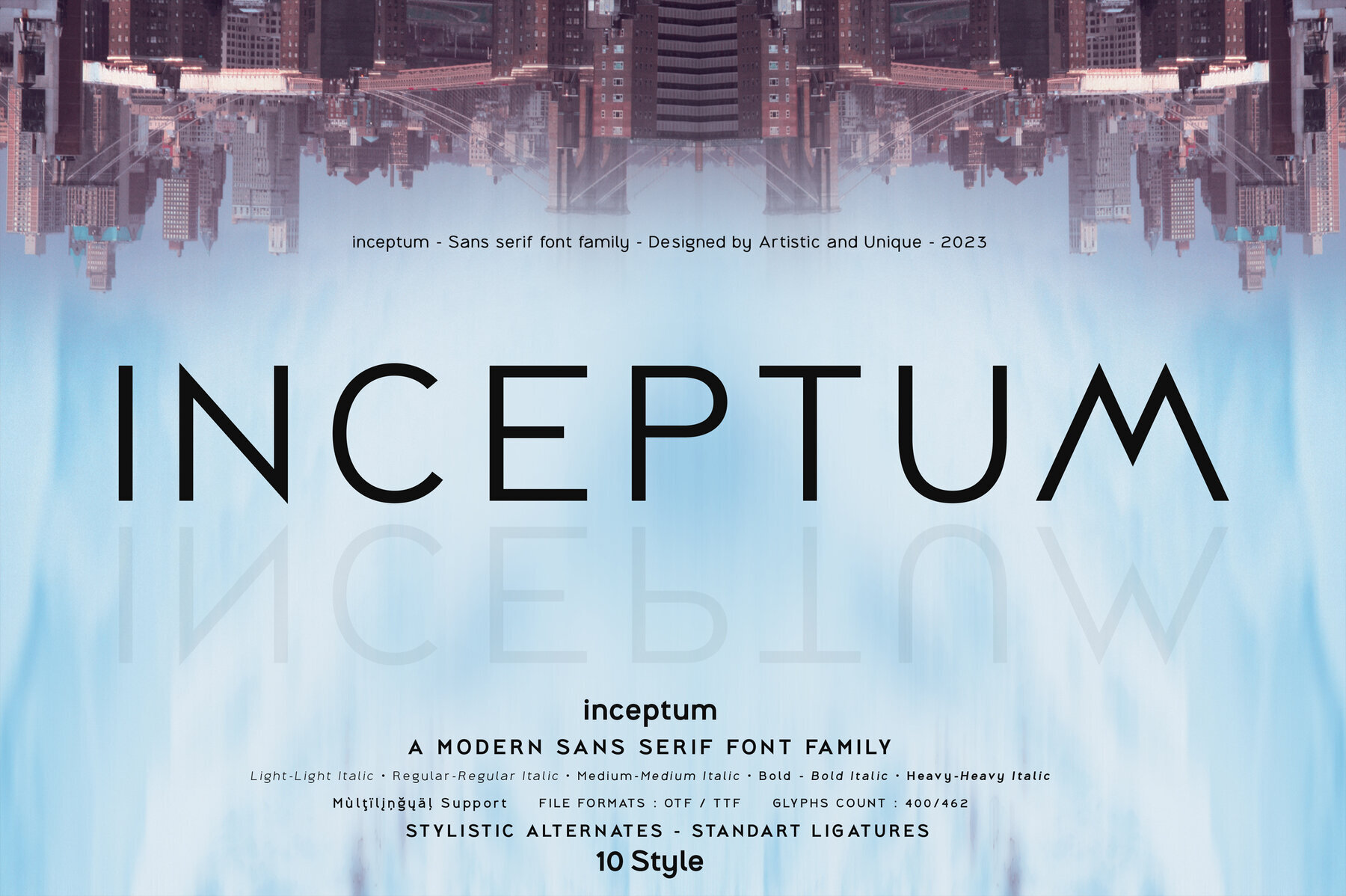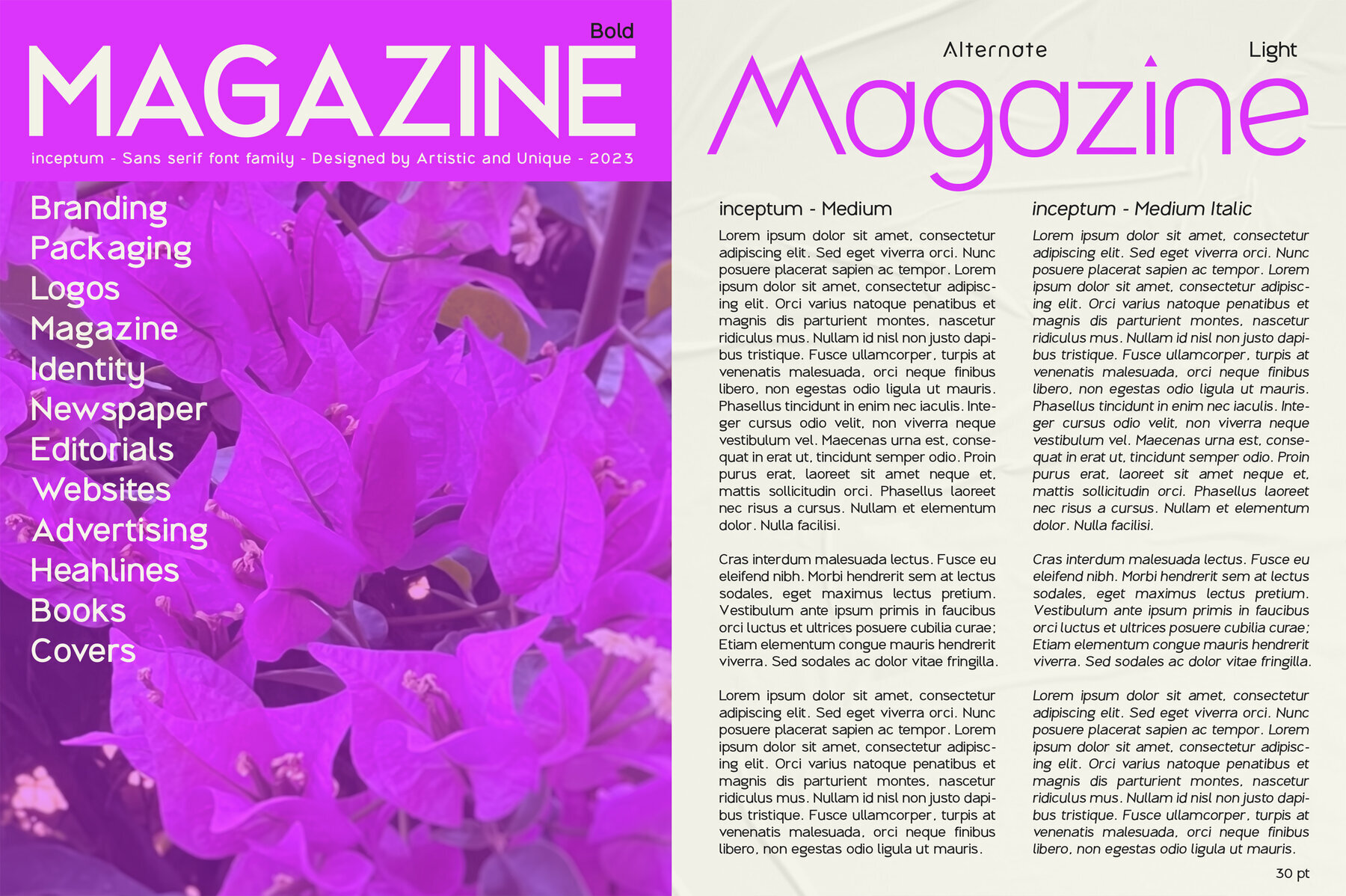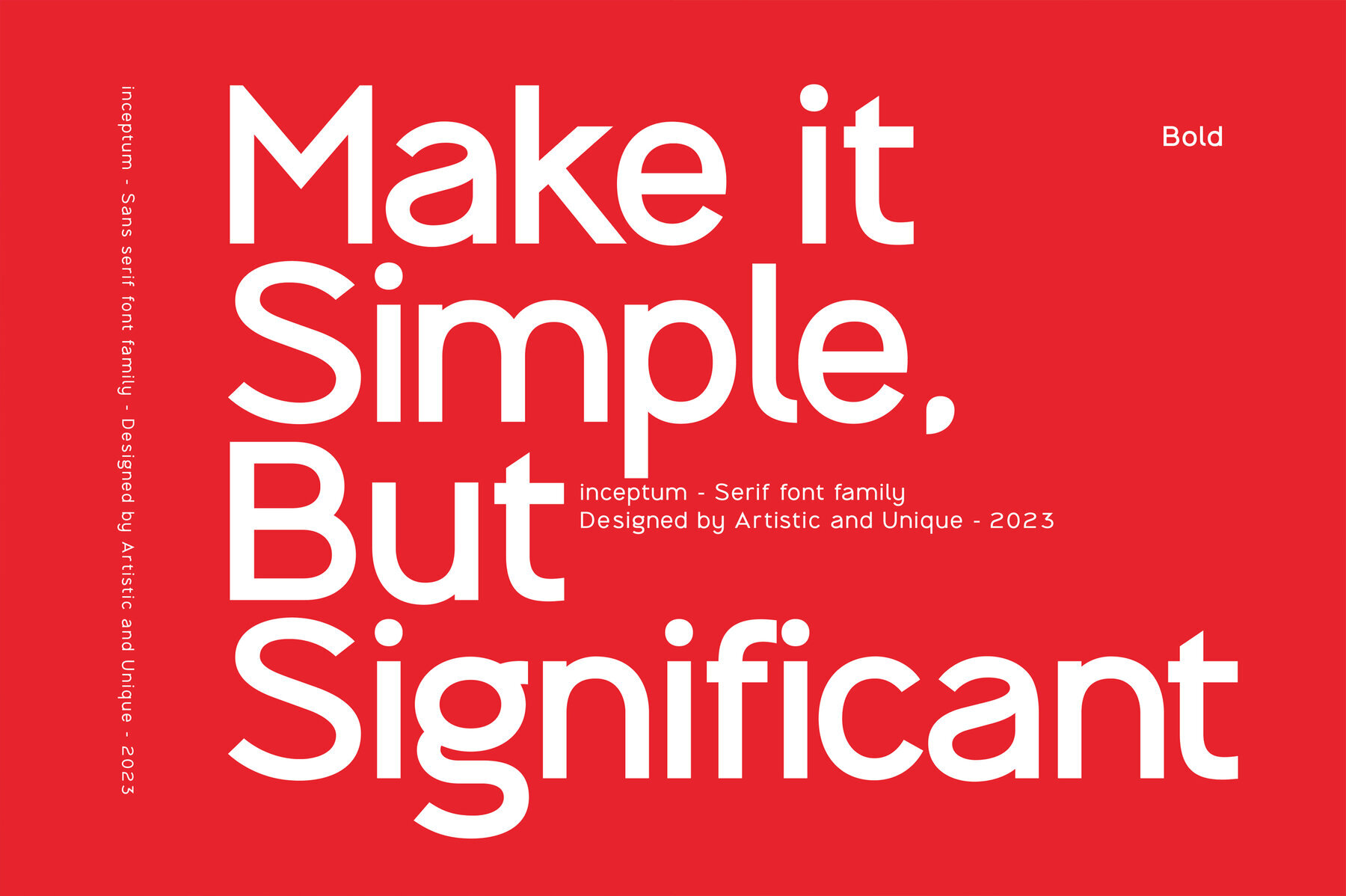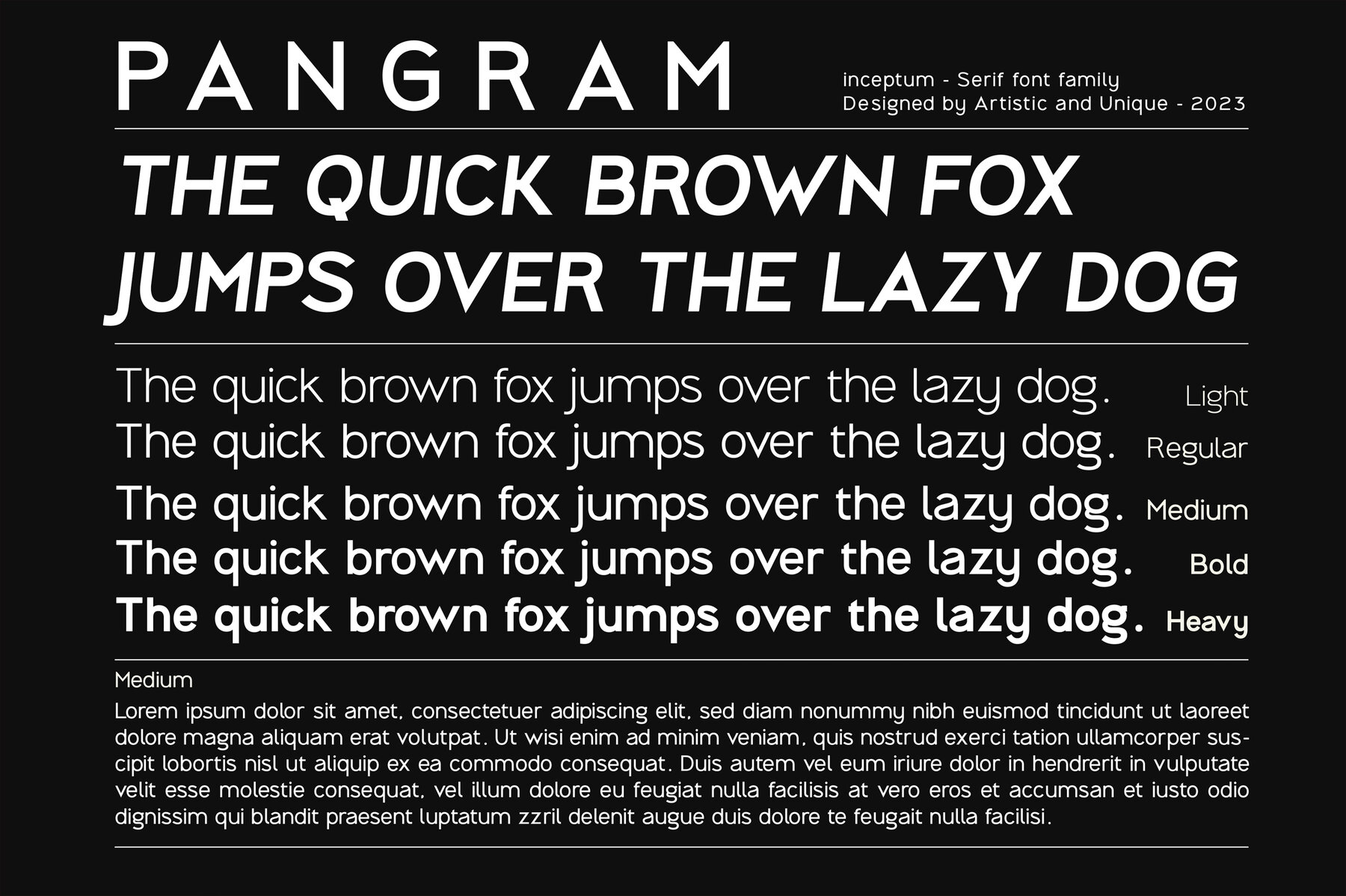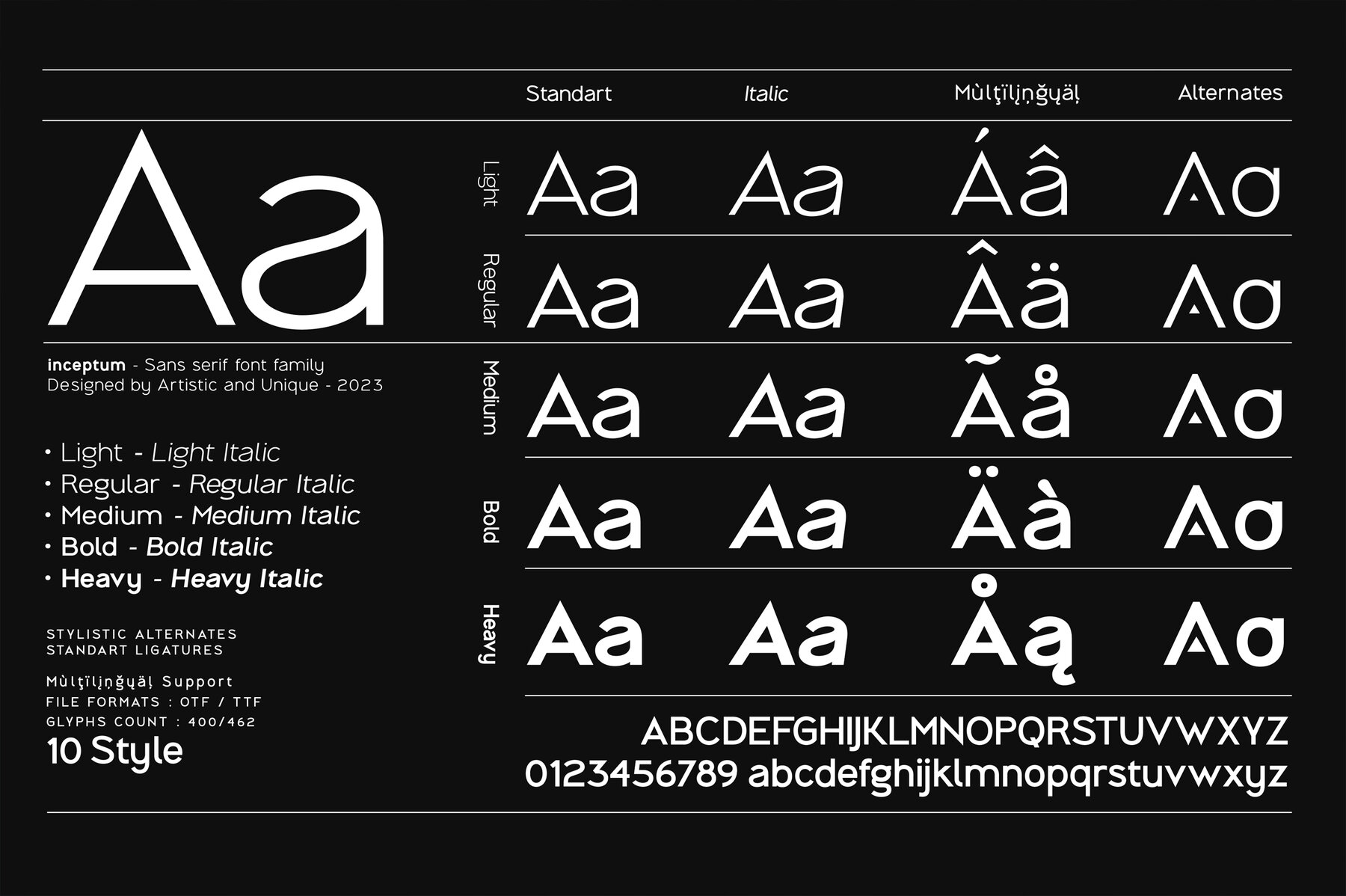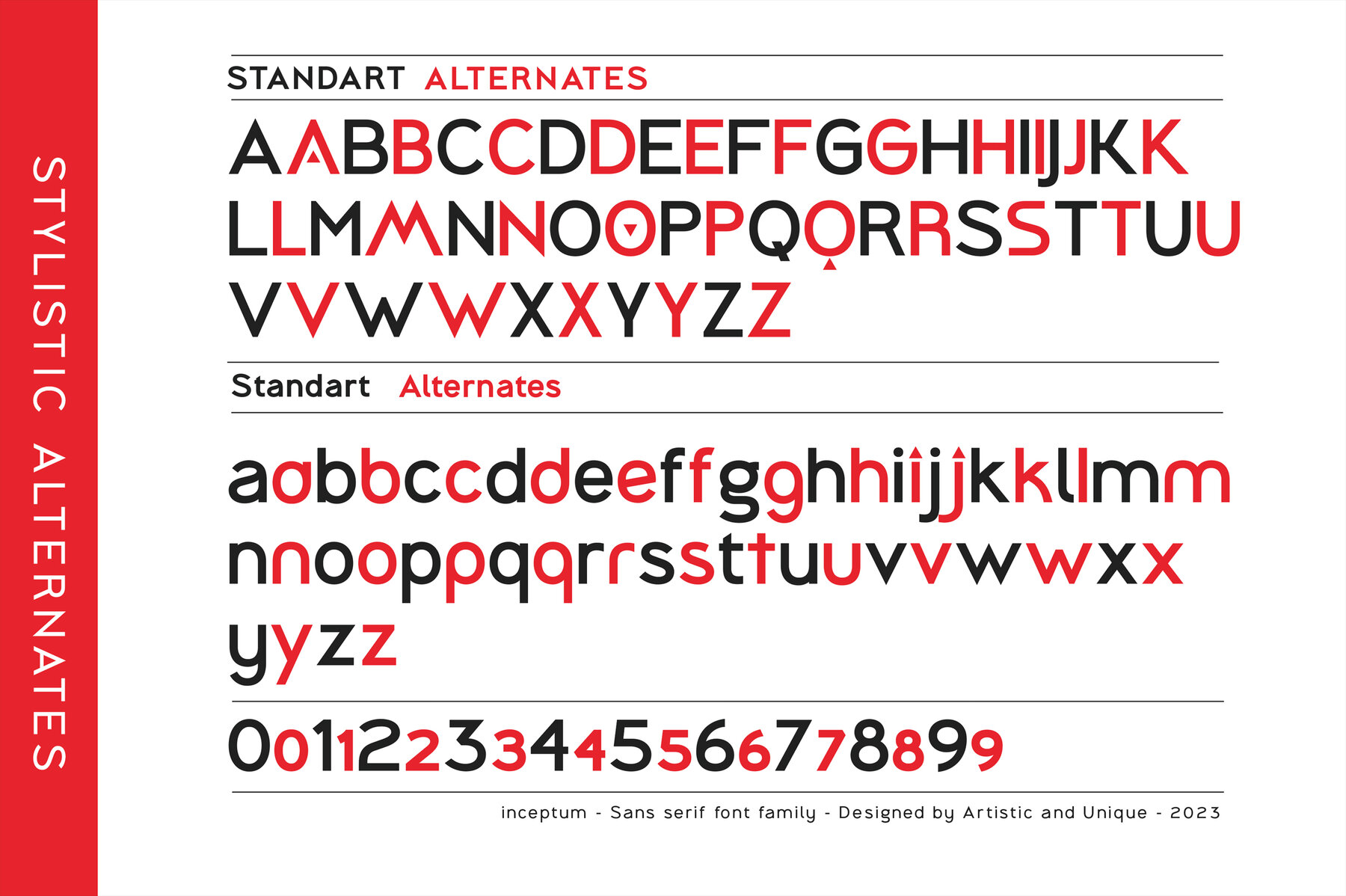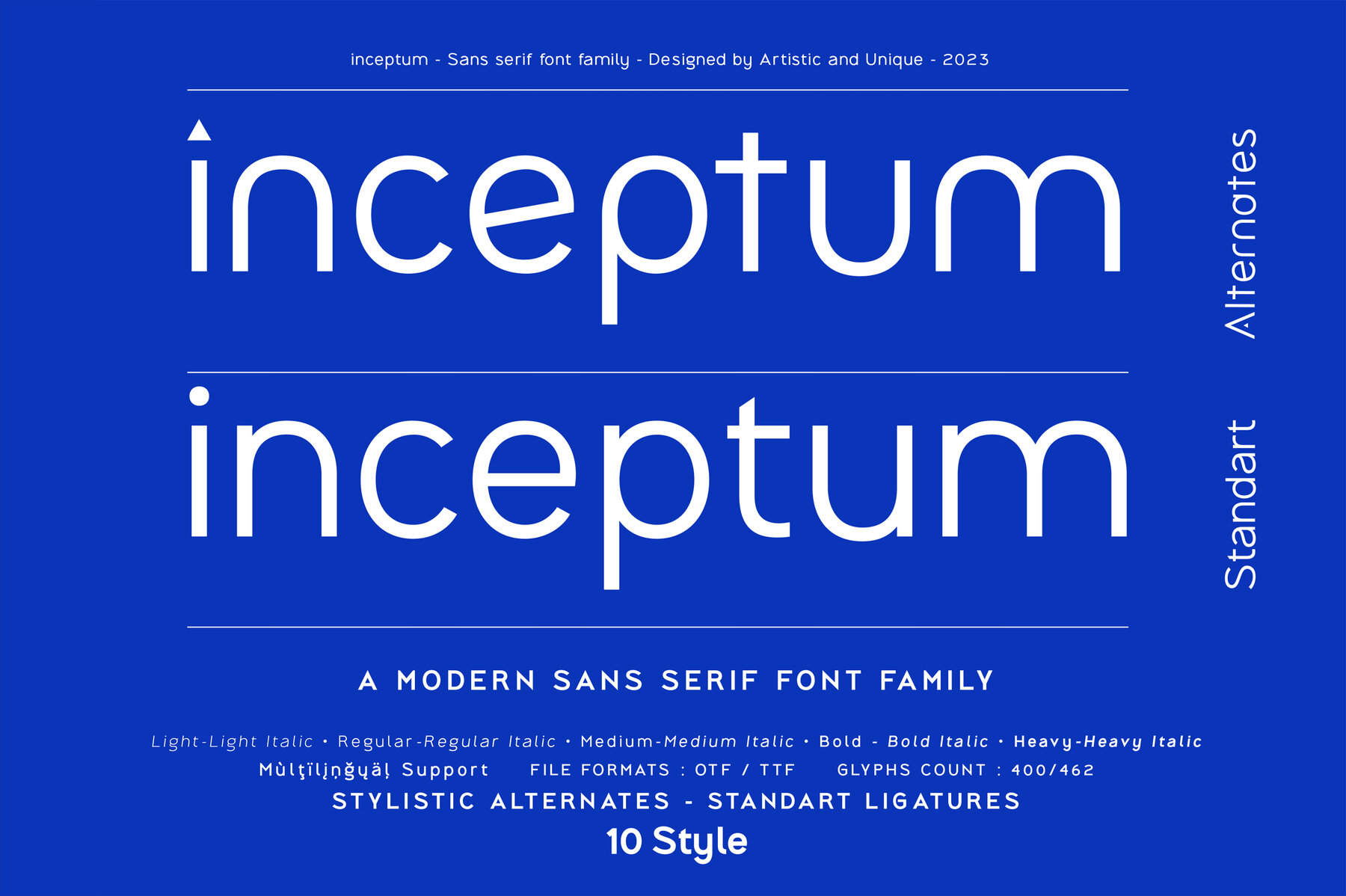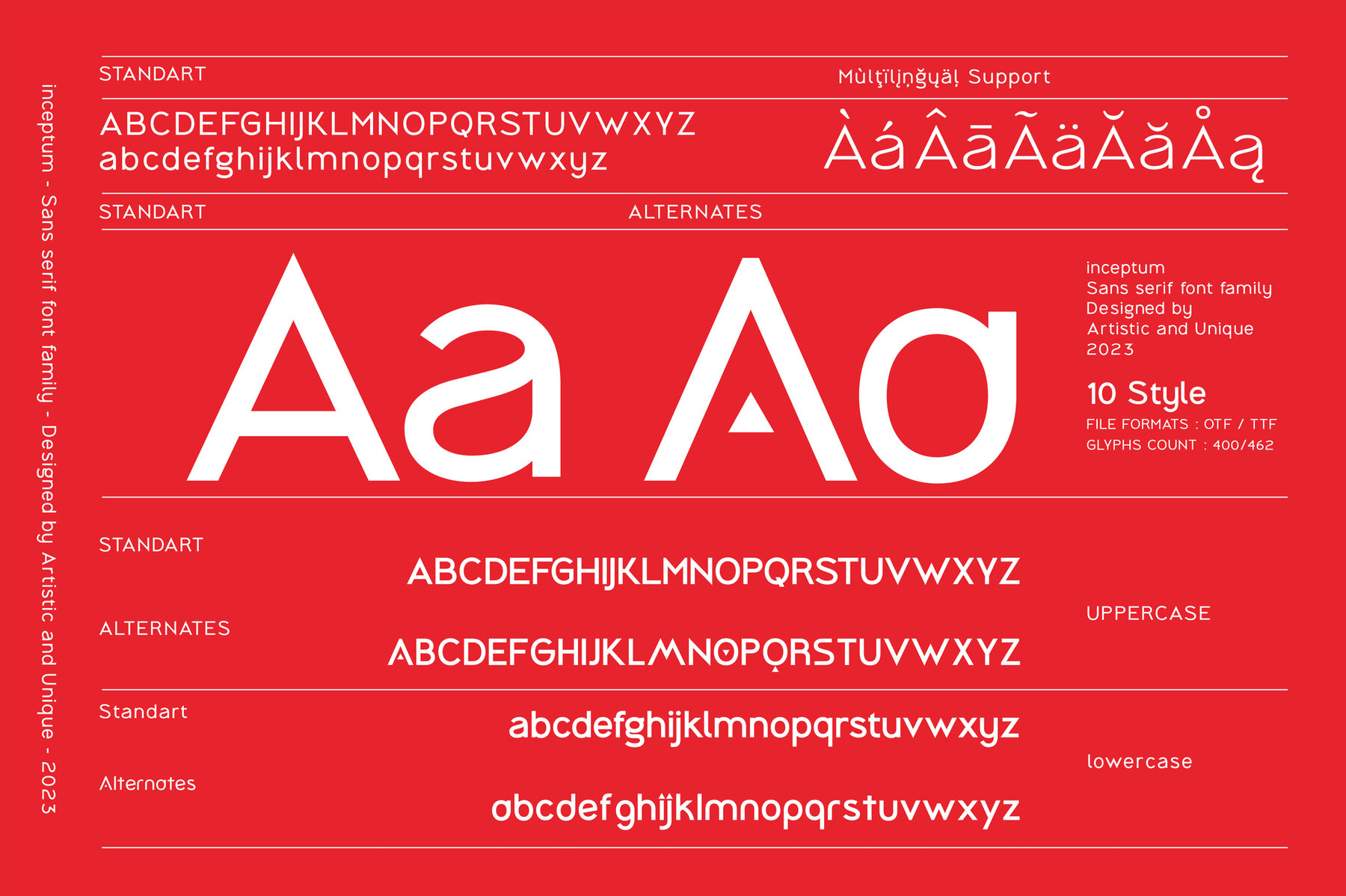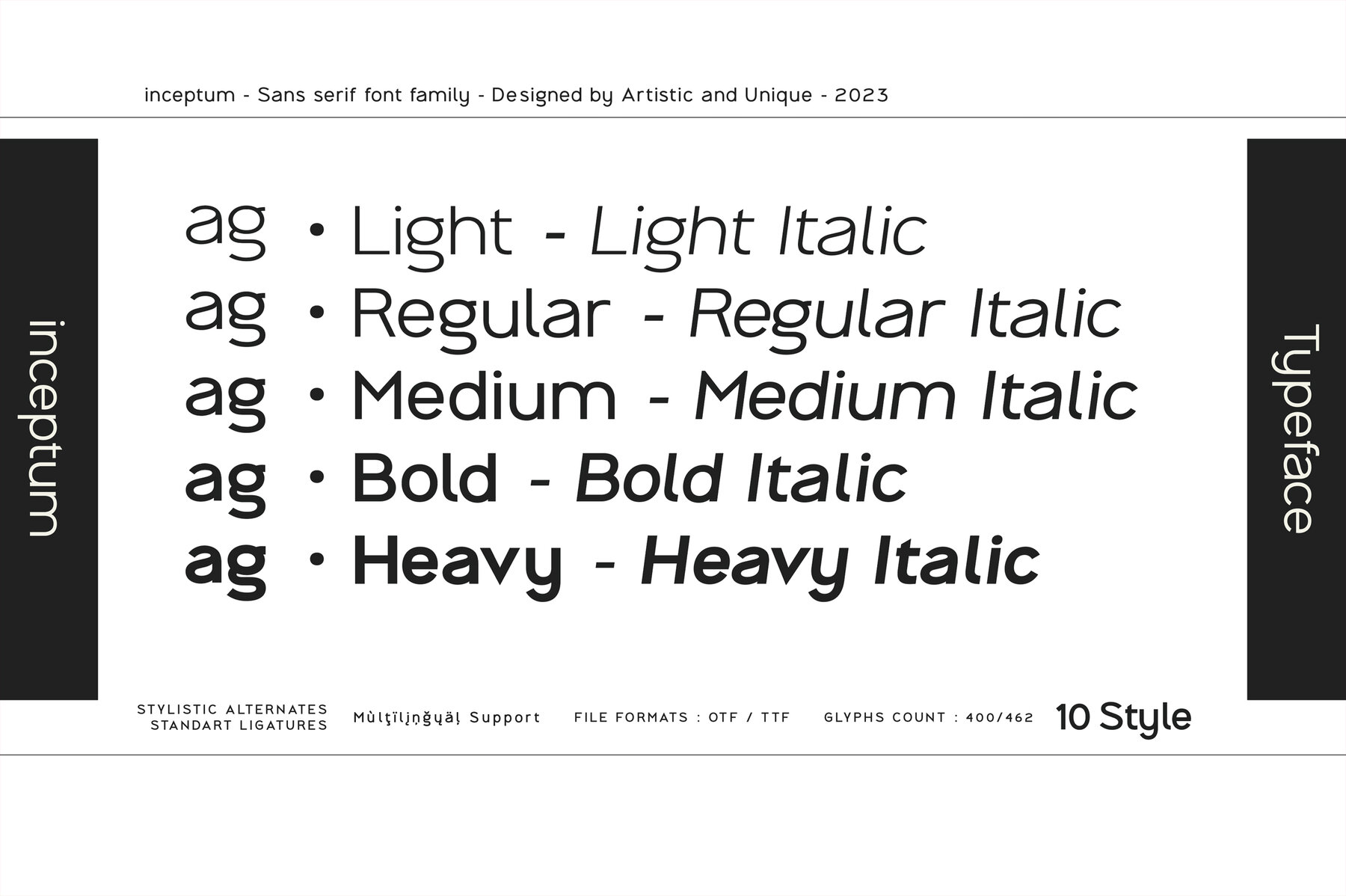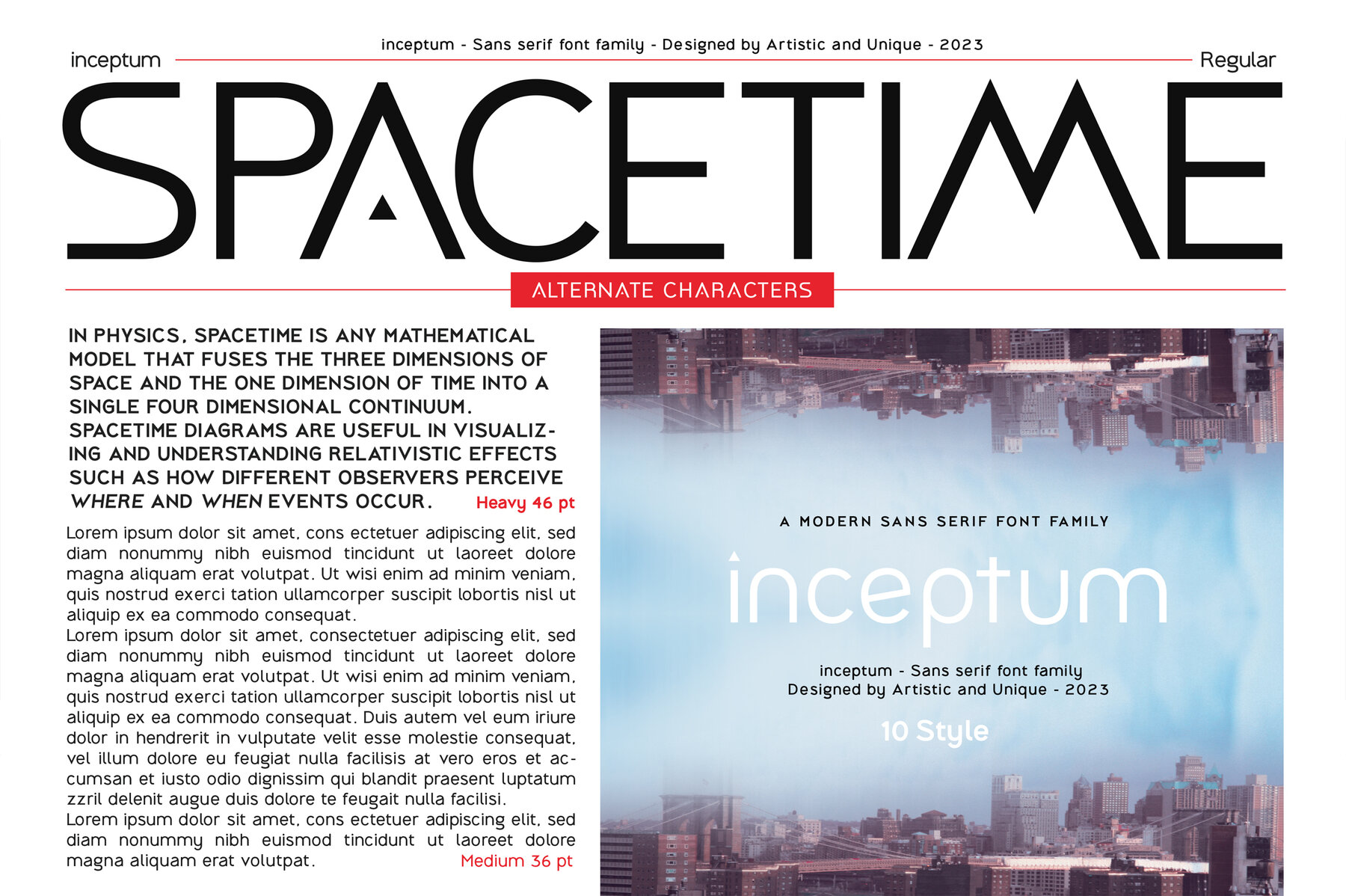
inceptum Font
The Inceptum font family, a geometric sans serif, enriches your creative toolbox with its 10 distinct styles. Featuring futuristic alternative characters and comprehensive multilingual support, this font excels in versatility and high readability across various weights. Perfect for both modern and classic applications, Inceptum suits a range of projects including books, magazines, editorials, headlines, websites, logos, and branding. Elevate your advertising and design work with this adaptable and stylish font family.Inceptum: Geometric Sans Serif Font Family
Comprehensive Character Set